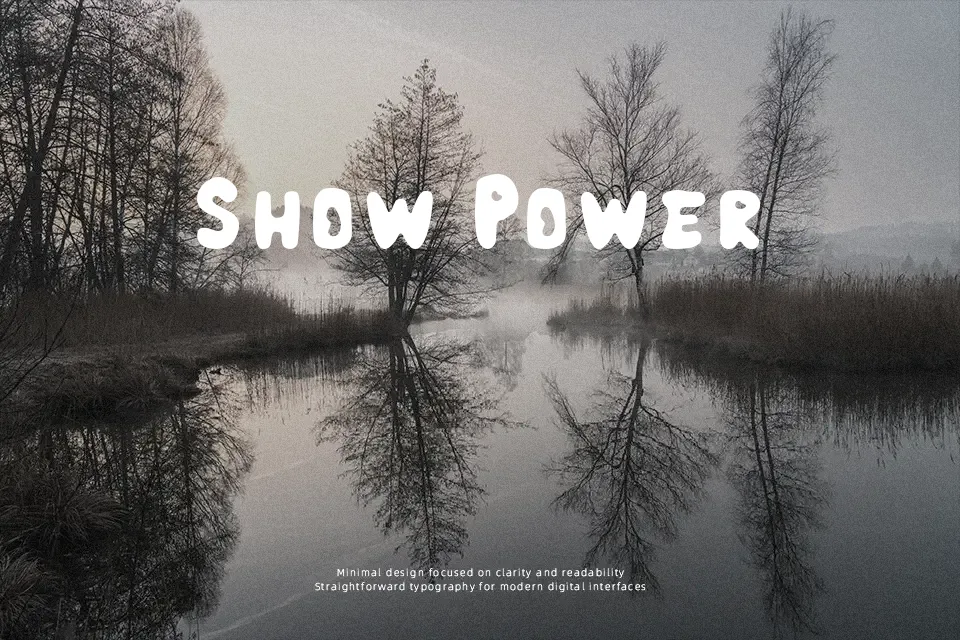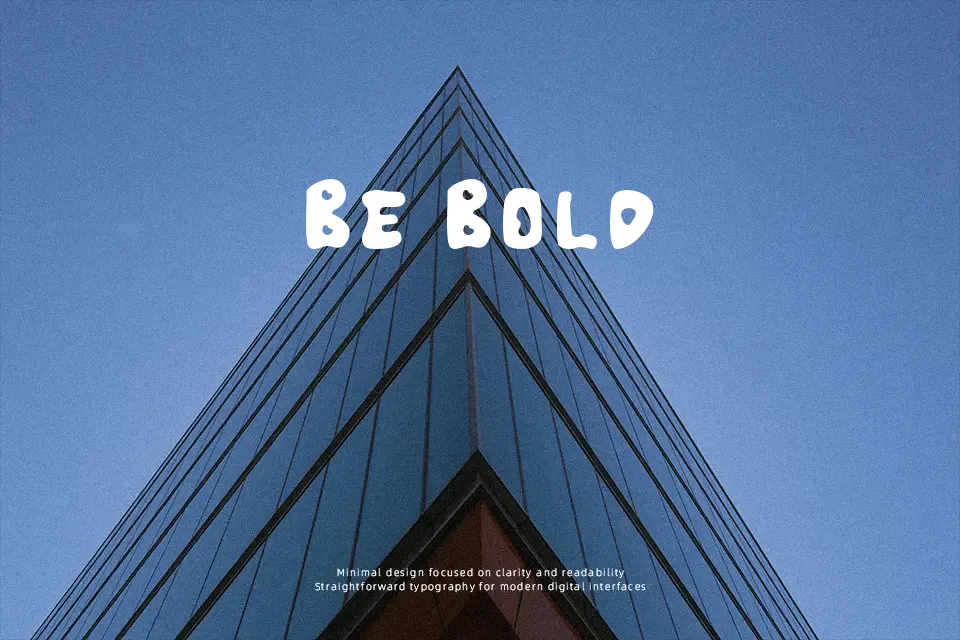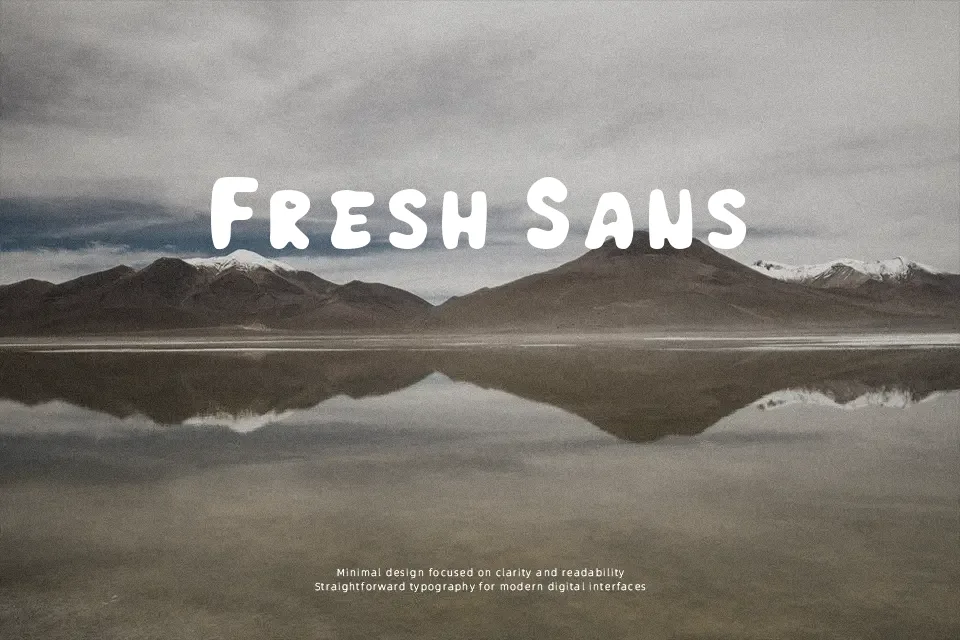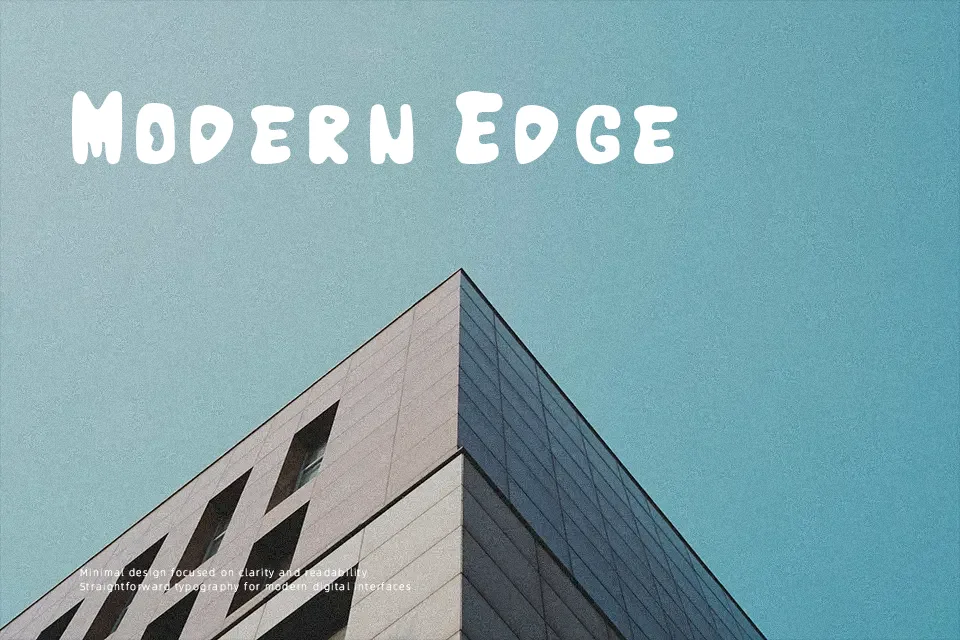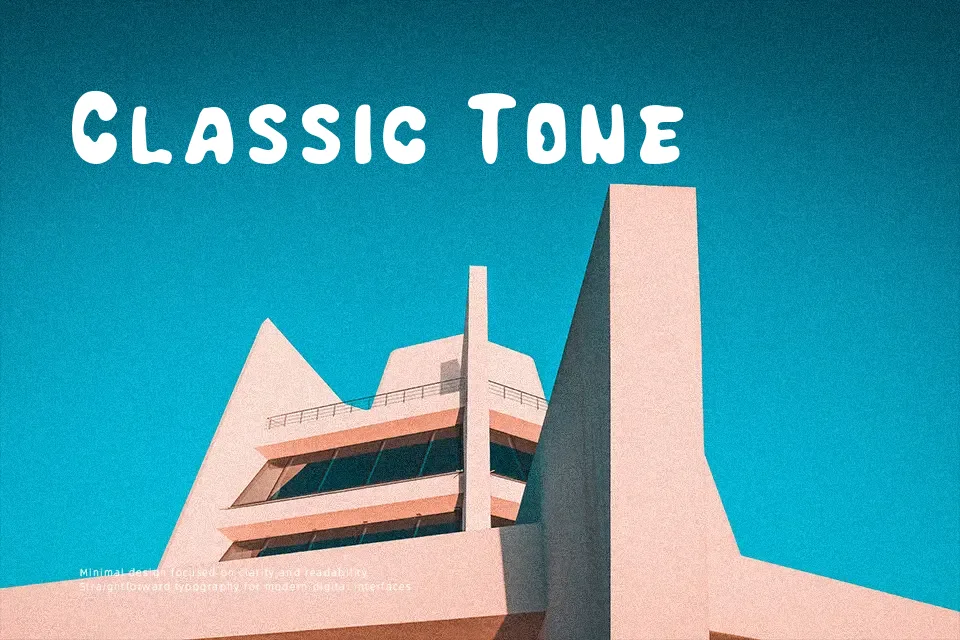
Cheerful Kids Font
Cheerful Kids Font features thick, bulbous strokes with softened terminals and an animated, uneven baseline rhythm. Each character exhibits substantial weight with minimal stroke contrast, giving the overall design an organic and bouncy presence across display layouts. Proportions remain wide and open, paired with balanced kerning that prevents adjacent glyphs from colliding in headline arrangements. These robust letterforms deliver immediate visual punch across youth event banners, school posters, and casual mobile game graphics. However, the heavy weight and compact counters make continuous body text difficult to decipher at smaller point sizes. For maximum effectiveness, the typeface is best reserved for short phrases where its friendly volume commands attention without overwhelming crowded compositions.
Best For: children book covers,toy packaging labels,animated video title cards,school event posters
Not Ideal For: dense body text,editorial magazine paragraphs,formal legal documents,small mobile UI labels
Perfect for branding, headline, and kids, with a bold and cartoon style.